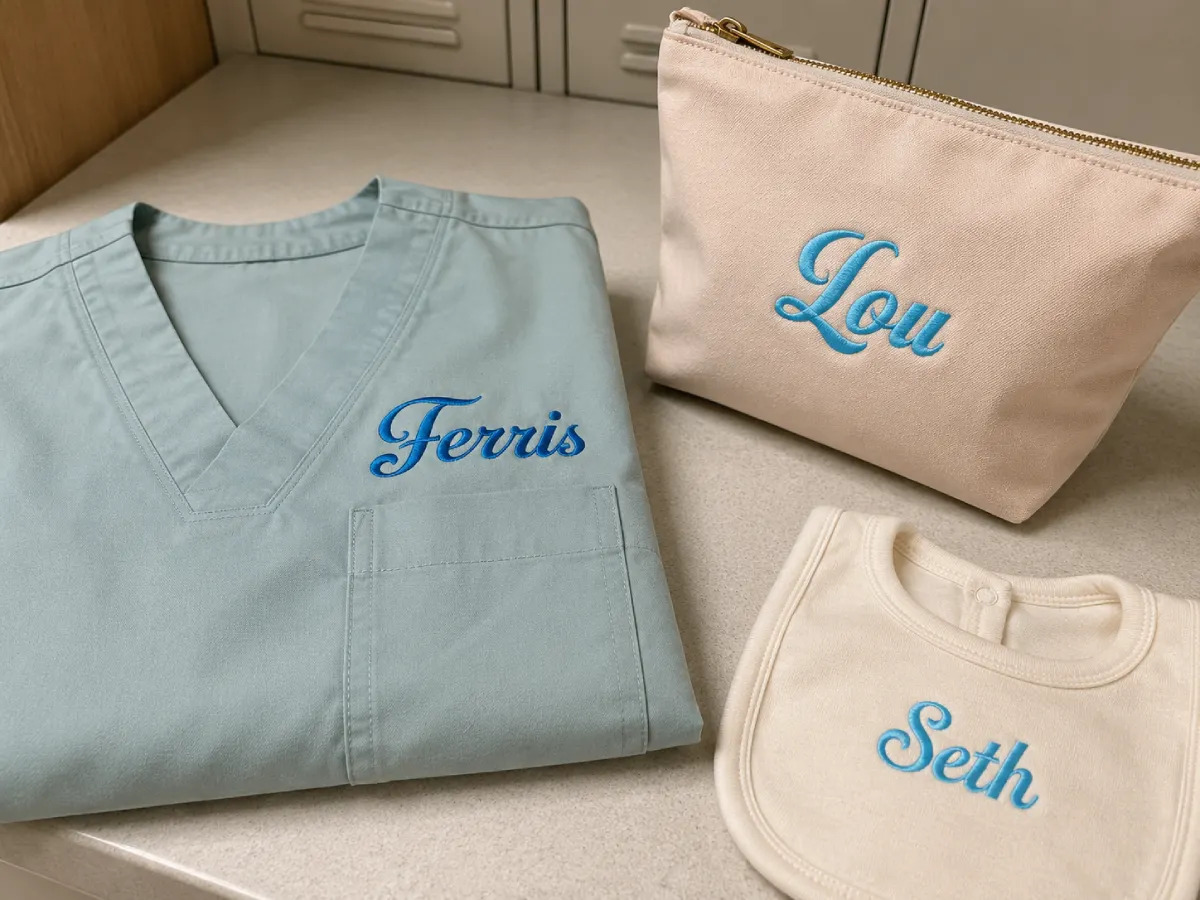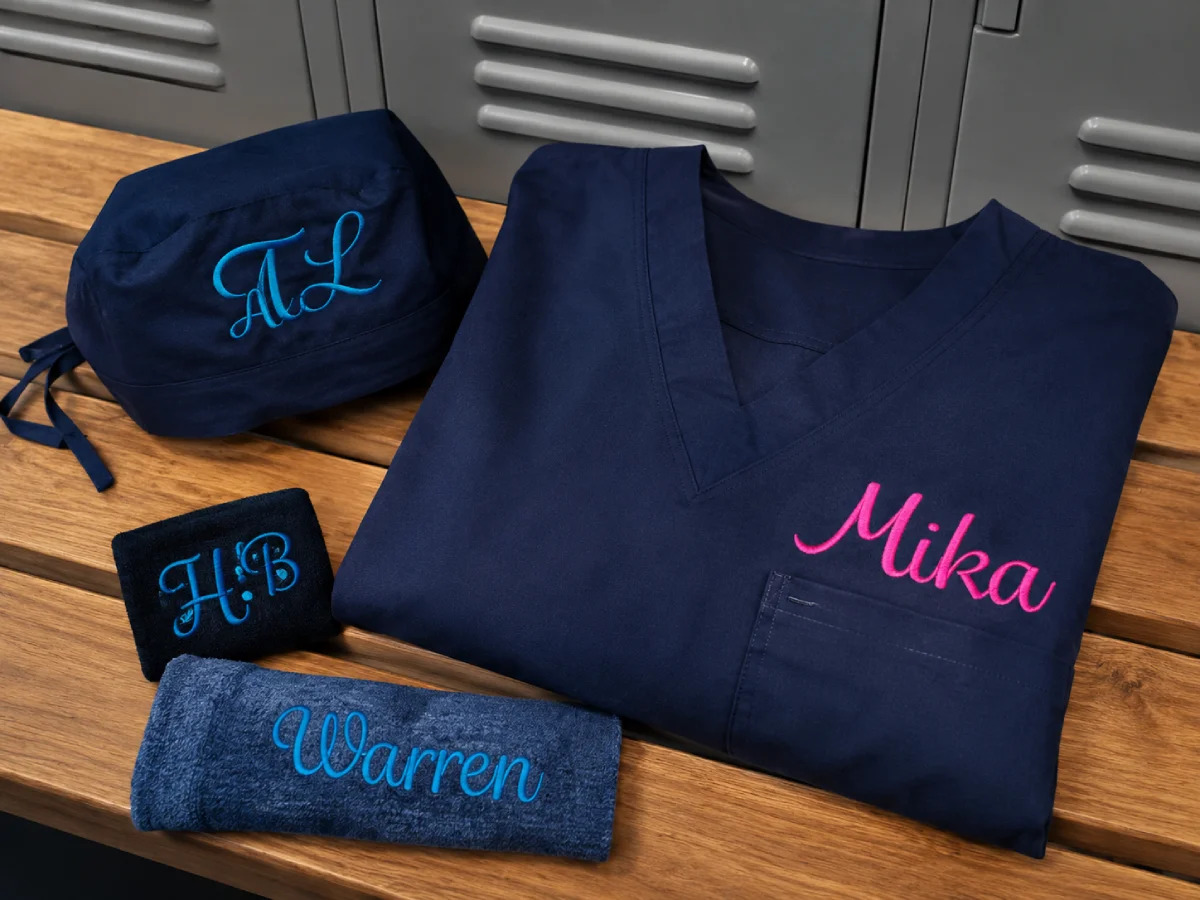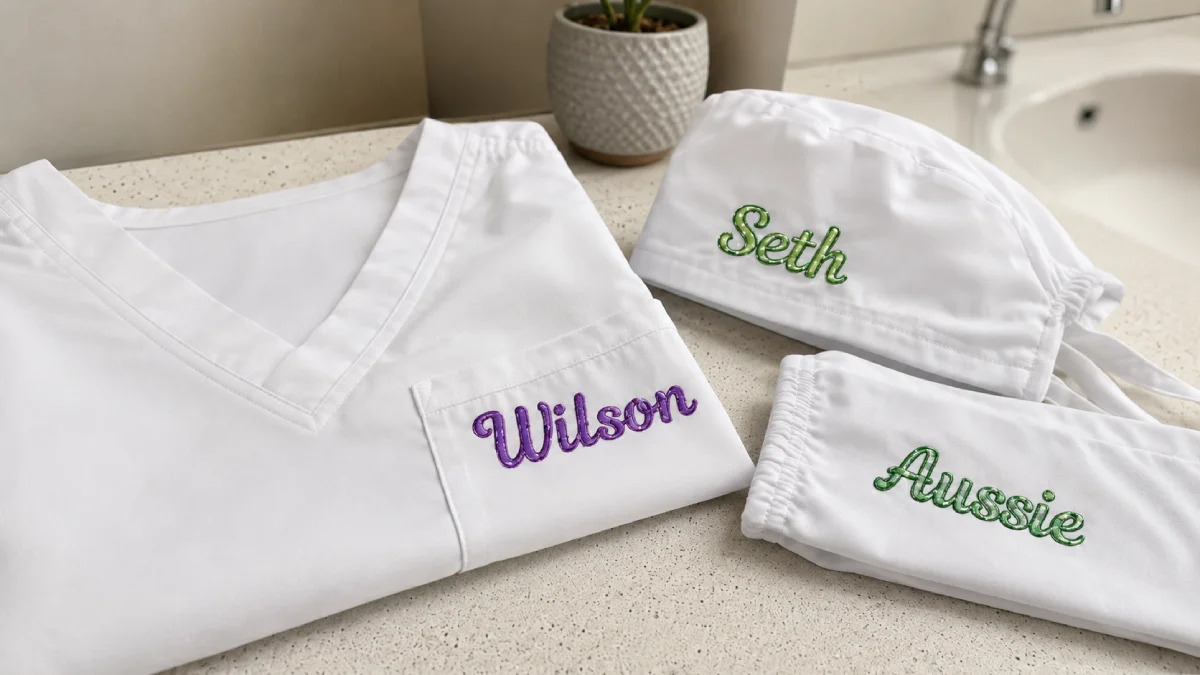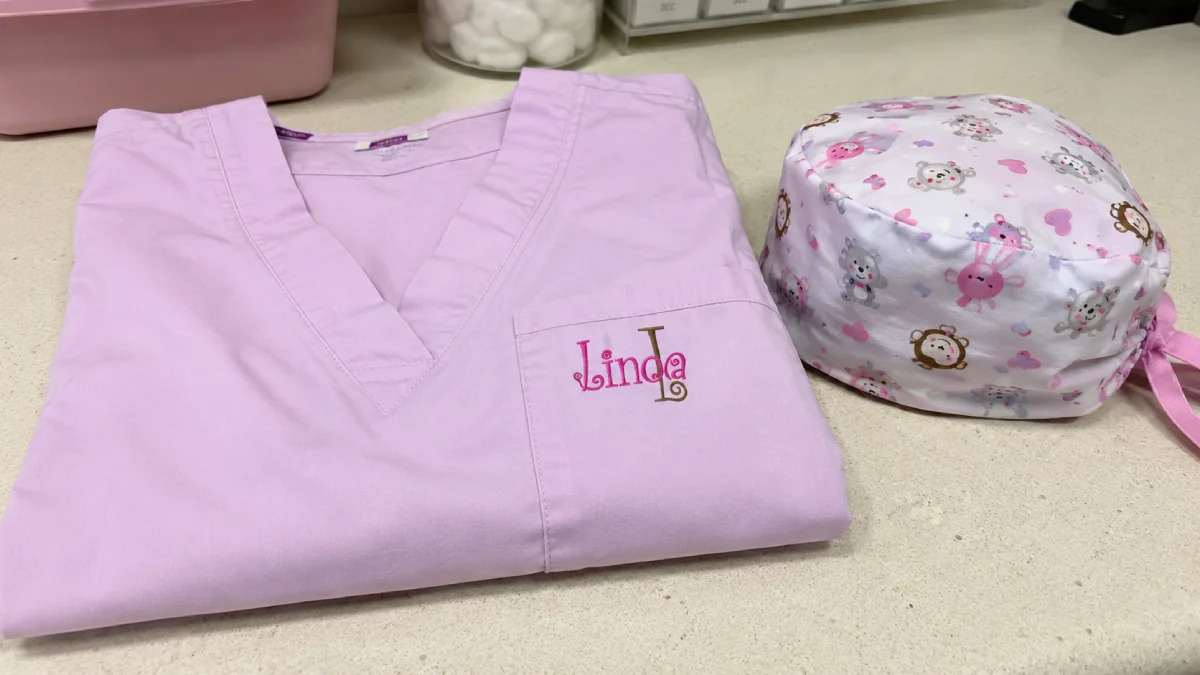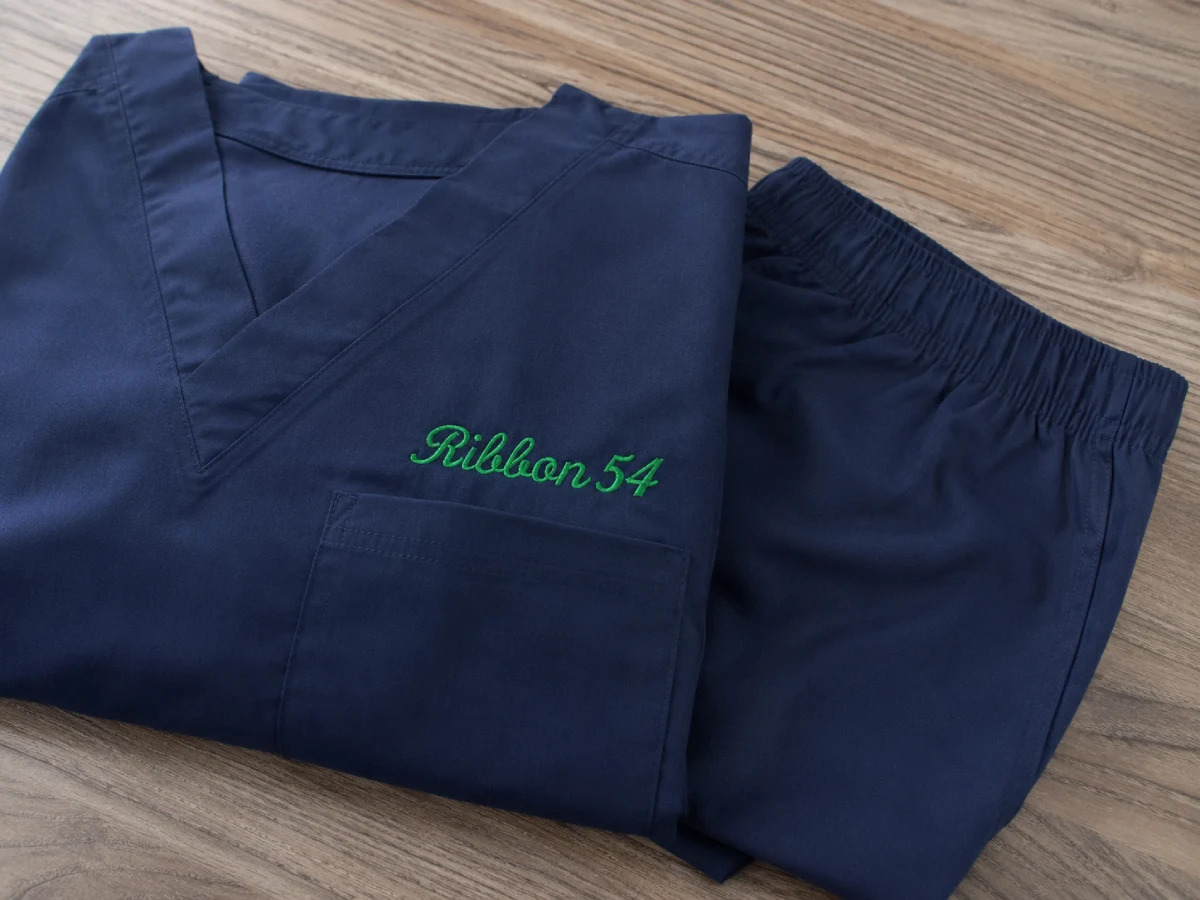
8 Small Embroidery Fonts That Still Stitch Clean on Scrubs and Uniforms
On scrubs, ribbons, bows, and name tags, the wrong font can stitch too thick, blur together, or lose its charm after one wash. The right small embroidery fonts solve that problem with cleaner spacing and readable shapes. Let’s look at Apex picks that keep small lettering crisp, cute, and actually usable.
Why Micro Embroidery Fonts Get Tricky
Micro embroidery fonts get tricky because every letter has less room for clean stitch paths, open counters, and stable spacing. When a font is too dense, curly, or thin, tiny letters can close up, blur, or sink into the fabric.
That is why the best font for small embroidery is usually not the fanciest one. It is the one that stays open, simple, and readable after stitching.
For machine embroidery small fonts, pay attention to these details:
- Look at the smallest included size
- Use monogram fonts for initials, not long words.
- Be careful with script fonts under one inch.
- Avoid resizing tiny fonts too much unless you understand how density changes.
- Test on similar fabric before stitching the final item.
Top 8 Apex Micro Embroidery Fonts for Scrubs and Uniforms
Here are Apex embroidery fonts that make sense for scrub names, clinic uniforms, nurse bags, and healthcare gifts.
Ribbon Script Small Embroidery Fonts
Ribbon Script Small Embroidery Fonts includes 0.30", 0.40", and 0.50" sizes, which makes it a strong choice for narrow spaces where a regular script font would simply be too bulky.
Ferris Embroidery Font
Ferris Embroidery Font is a good pick when you want a small embroidery font with a smoother, more polished script look.
Ferris is not the font I would force into a super tiny ribbon project. That job belongs more to Ribbon Script Small. But for small names on bags, uniform, gifts, baby items..., Ferris has a more finished, graceful look.
Warren Embroidery Font
Warren Embroidery Font is a fun script machine embroidery font with alphabet letters and numbers.
This is the font to try when the project needs more personality. It feels casual, friendly, and less formal than a traditional script font.
That makes it a good fit for school items, kids’ bags, children's clinic items,...
Athletic Script Embroidery Font
Athletic Script Embroidery Font is the boldest option in this group. It includes 0.75", 1", 1.5", and 2" sizes and is designed with a child feel. This makes it a smart choice when small lettering still needs energy and visibility.
The 0.75" and 1" sizes can work for small embroidery, but this is not a delicate micro font. It has more weight, so it needs enough space and the right fabric support.
Fine Script Embroidery Font
Fine Script Embroidery Font is a clean readable cursive bold satin machine embroidery font.
It comes in .75", 1", and 1.5" sizes, which makes it one of the better Apex picks when you want script lettering but do not want it to feel too decorative or hard to read.
Fine Script Embroidery Font is a strong choice for small names, initials, and simple personalization.
For scrub embroidery font projects, Fine Script can work when the name is short and the size is readable. For longer names or credentials, keep the layout simple and avoid squeezing everything into one tiny line.
Small Times Embroidery Font
If you want very small embroidery fonts that feel clean, classic, and practical, start here.
Small Times Embroidery Font comes in 5mm, 6mm, 7mm, and 8mm sizes, which makes it one of the strongest Apex picks for tiny machine embroidery lettering.
For scrub embroidery font projects, this is the safer direction: clean, compact, and easier to read than overly curly script.
Simple Small Script Applique Embroidery Font
Curlz Small Embroidery Font
Curlz Small Embroidery Font is for people who want playful tiny lettering.
This extra small font set includes upper and lower case letters and numbers at .5 inch only.